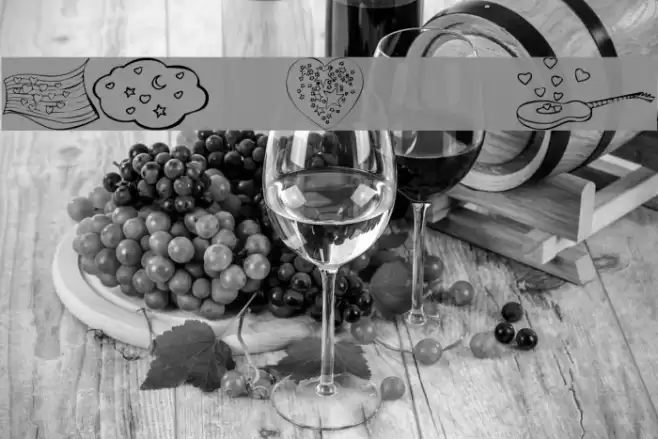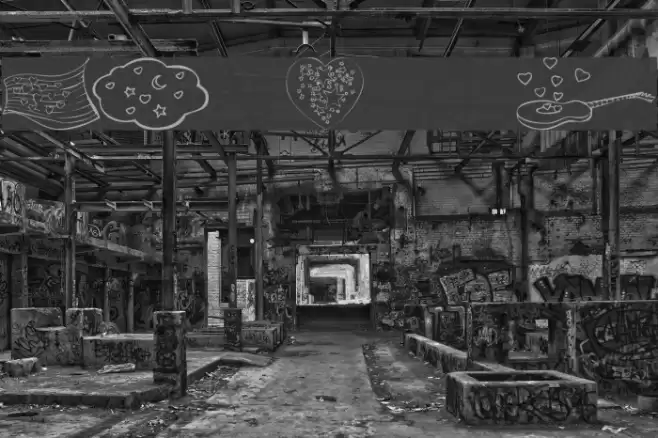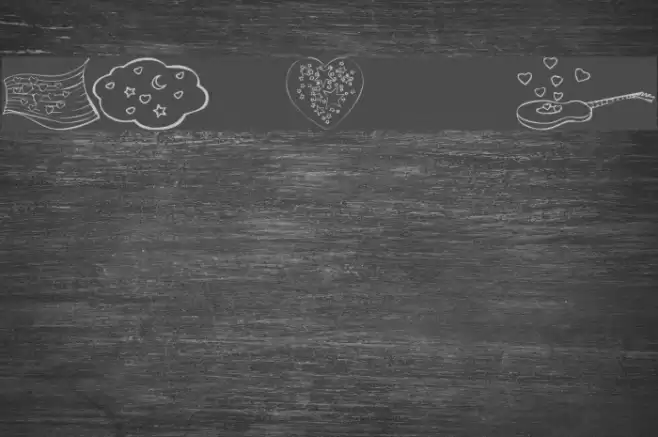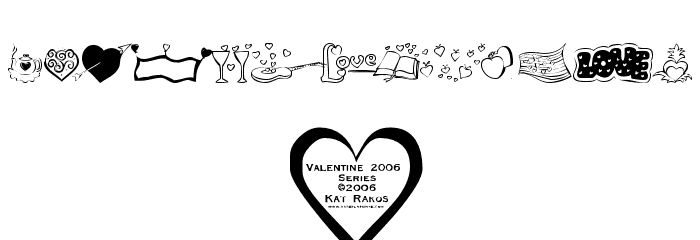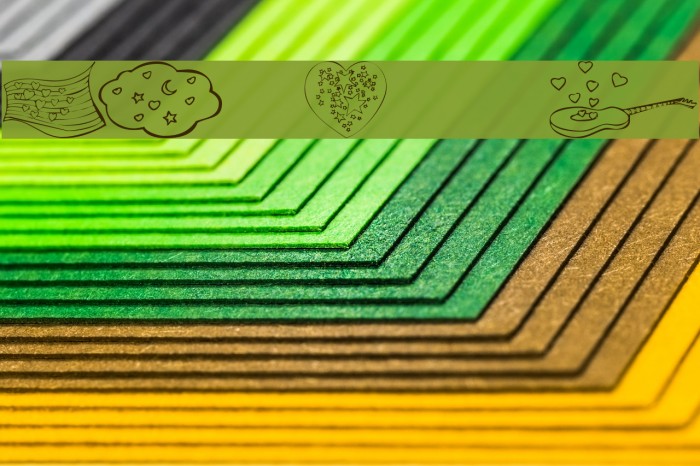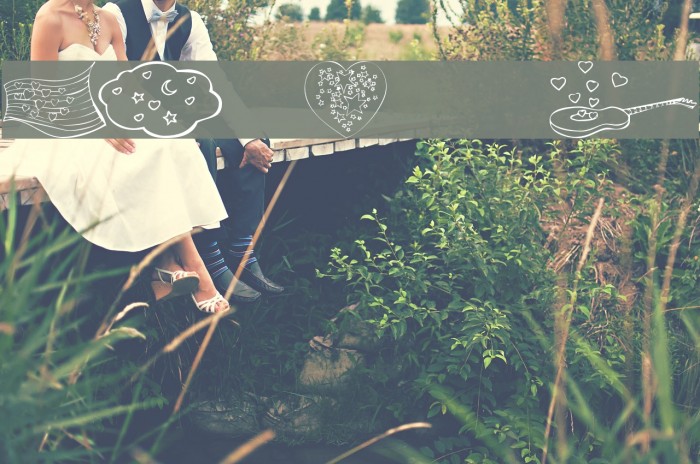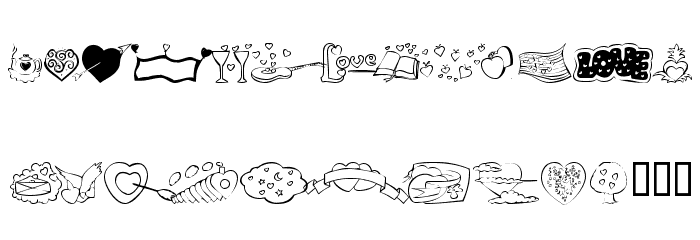
KR Valentines 2006 Five Font
KR Valentines 2006 Five Description
This is a decorative font featuring a series of playful and romantic illustrations. Each character is represented by a unique Valentine's Day-themed doodle, including hearts, flowers, and love-related symbols. The style is whimsical and hand-drawn, making it ideal for projects that require a personal and festive touch. The font captures the essence of love and celebration, perfect for adding a charming and creative flair to any design.
A whimsical, hand-drawn decorative font with Valentine's Day-themed illustrations from Valentine fonts.
- Proposed Projects: Ideal for Valentine's Day cards, wedding invitations, romantic event posters, and festive decorations.
- Use Case: Logos, Headlines, Decorative elements